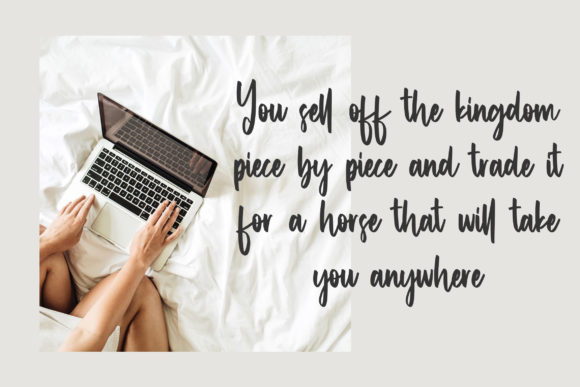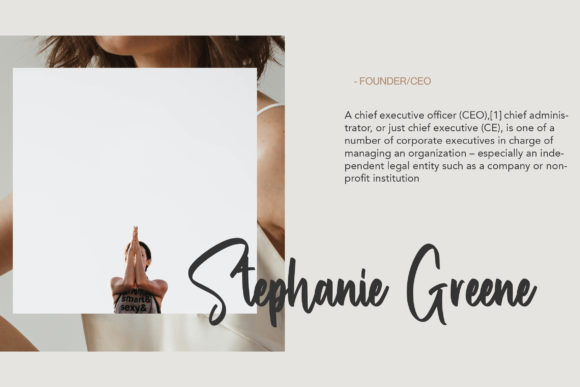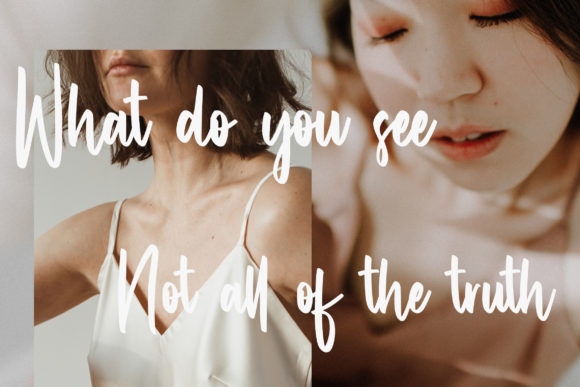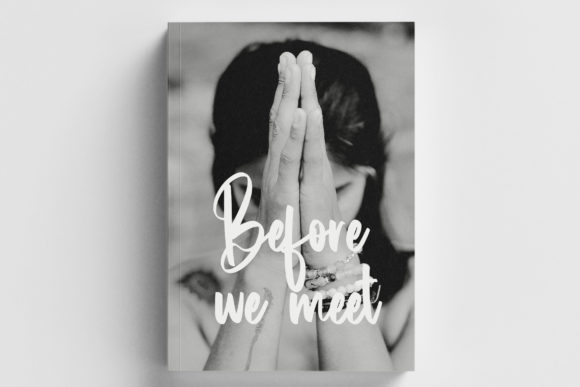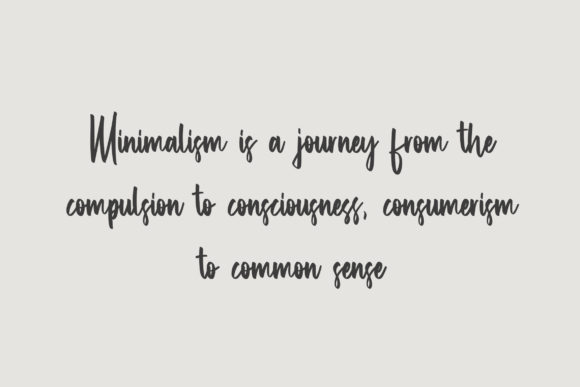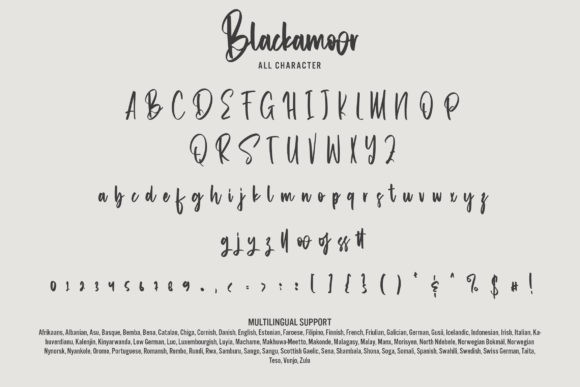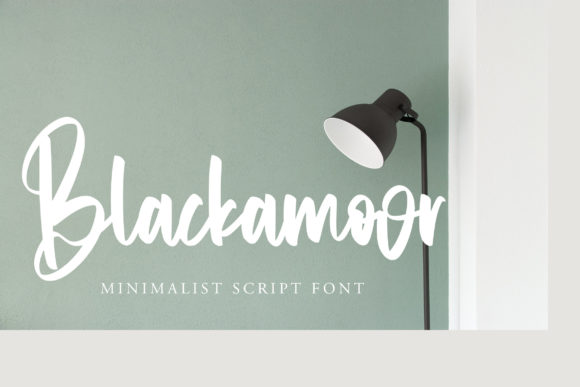
The Ultimate Guide to Blackamoor Font: Adding a Personal Touch to Your Designs
I’ll never forget the time I was working on a project for a client who wanted a font that was both trendy and cursive. I had spent hours scouring the internet for the perfect font, but nothing seemed quite right. That was until I stumbled upon Blackamoor Font. This fun, relaxed, and cool handwritten font has been a game-changer for my designs, and I’m excited to share its awesomeness with you! 😊
An Honest Review of Blackamoor Font
• ✅ The personal touch: Blackamoor Font adds a friendly and approachable feel to any design.
• ✅ Versatility: It works beautifully for a wide range of projects, from branding and advertising to crafting and DIY tutorials.
• ✅ Unique character: The font’s quirky and whimsical style sets it apart from more traditional fonts.
• ✅ Easy to read: Despite its handwritten nature, Blackamoor Font is surprisingly legible, even at smaller sizes.
While Blackamoor Font is an amazing addition to any design, there are a few things to keep in mind:
• 🤔 Limited formal use: Due to its casual and playful nature, Blackamoor Font might not be the best choice for very formal or professional projects.
• ⚠️ Overuse: Using Blackamoor Font excessively can make your design look cluttered and overwhelming.
The Story Behind Blackamoor Font
Blackamoor Font was designed with the intention of creating a unique and approachable font that would add a personal touch to any design. The designer aimed to craft a font that was both trendy and timeless, with a quirky character that would set it apart from more traditional fonts.
Q: What type of projects is Blackamoor Font best suited for?
A: Blackamoor Font is versatile and can be used for a wide range of projects, including branding, advertising, crafting, and DIY tutorials.
Q: Is Blackamoor Font easy to read?
A: Yes, despite its handwritten nature, Blackamoor Font is surprisingly legible, even at smaller sizes.